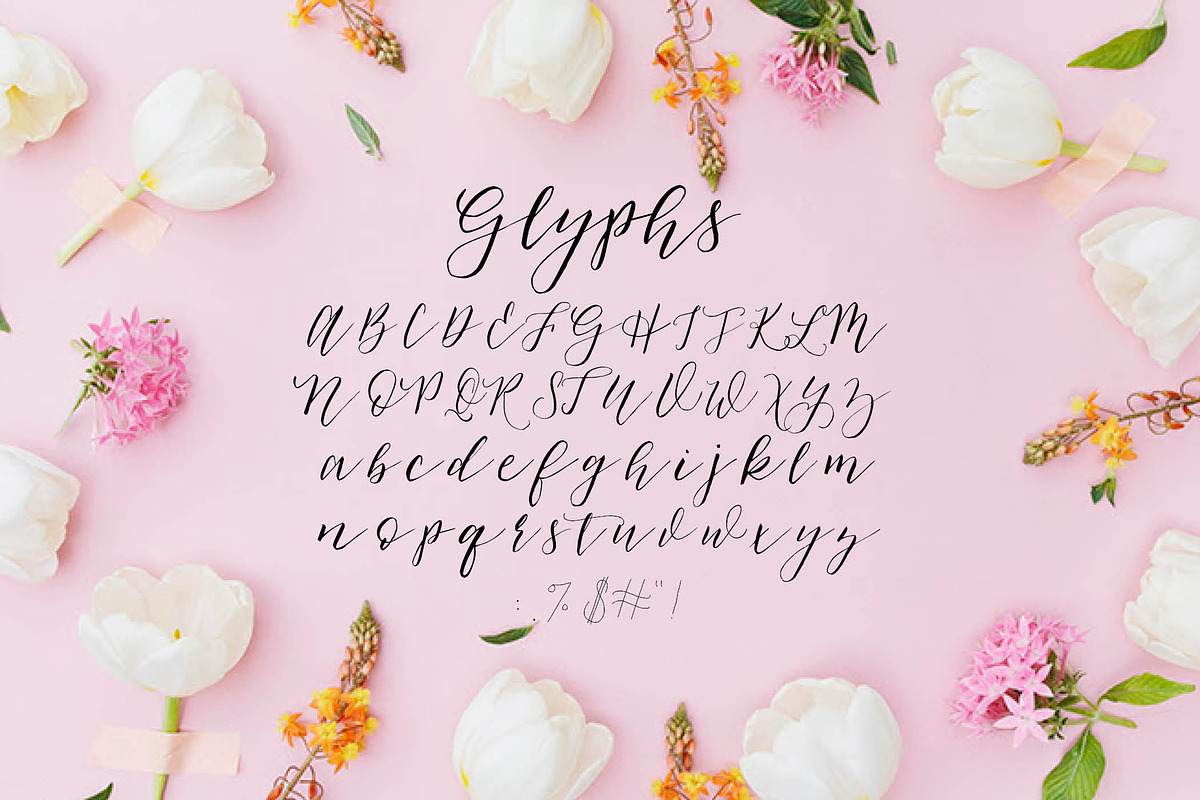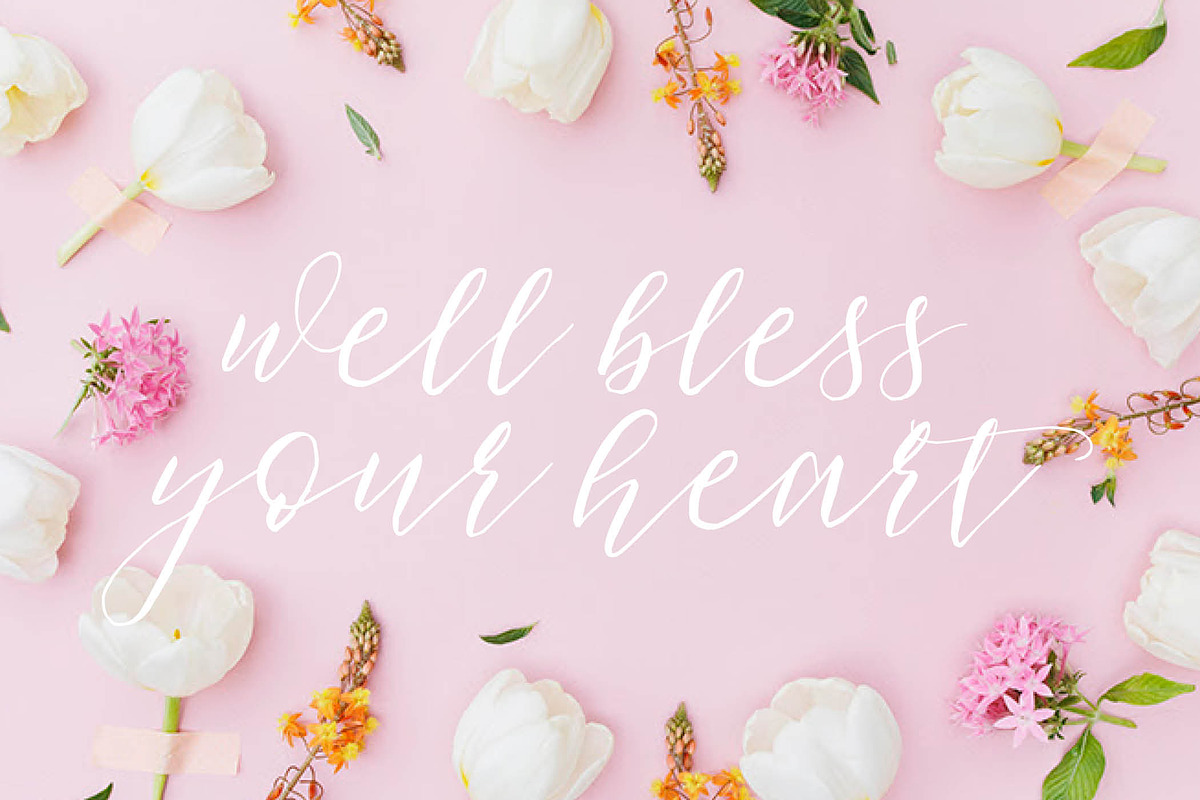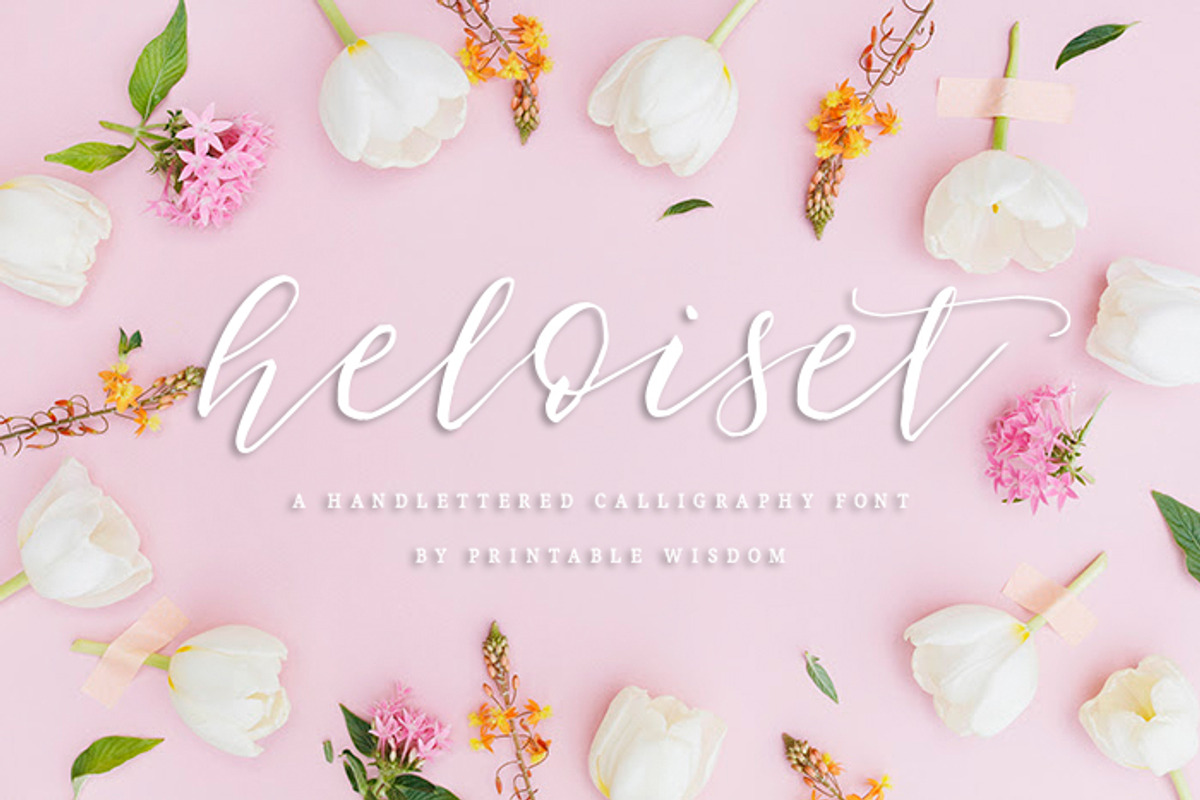
Heloiset Calligraphy Font
Heloiset Calligraphy Font by Printable Wisdom is a font selected for branding, posters, packaging, typography.
- No alternates or foreign alphabets supported at this time.
Why Heloiset Calligraphy Font is worth a look
Heloiset Calligraphy Font by Printable Wisdom fits naturally into Branding, posters, packaging, typography.